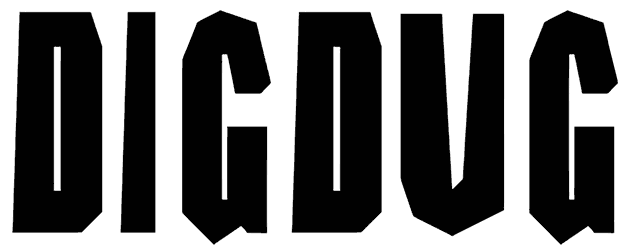
Dig Dug Font
Dig Dug is a unique polygon font that is perfectly fit for a wide set of graphic purposes, ranging from book covers, headlines, web pages, and the user interface of applications, to wood engravings. This all-caps, thick…
Dig Dug is a unique polygon font that is perfectly fit for a wide set of graphic purposes, ranging from book covers, headlines, web pages, and the user interface of applications, to wood engravings.
This all-caps, thick font can help you in establishing a sense of seriousness, fierceness, dynamism, or captivation. Aside from the lack of numbers, this artwork can boost the quality of your work and make it look brilliant alongside all its counterparts.
Loved this game on the Atari always wanted to create a font based on the name and a variation of all the different ways that it has been realized since its arcade debut. So far I have created only uppercase letters and a few bonus glyphs, please enjoy there are more to come…